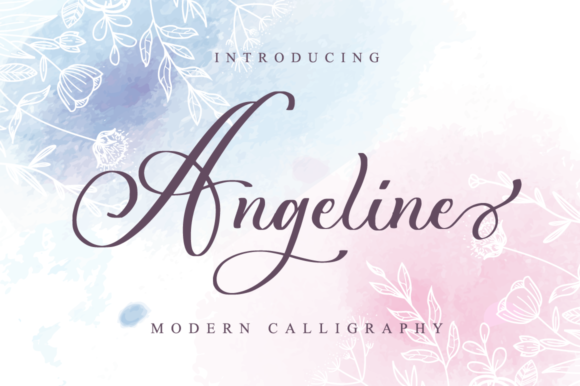
The Joy of Handwritten Charm: Introducing Angeline Font
Have you ever found yourself scribbling down ideas in the margins of a notebook, watching as your pen dances across the page, bringing your thoughts to life? For designers, that’s often the spark that ignites a new project. And what if you could capture that same sense of playfulness in your digital designs? Enter the Angeline Font, a lovely script font that’s sure to add a touch of whimsy to your most creative ideas.
This charming font features playful characters that seem to dance along the baseline, making it the perfect addition to any design project. With Angeline Font, you’ll be able to access all the glyphs and swashes you need to bring your vision to life. Whether you’re a seasoned designer or just starting out, Angeline Font is a valuable tool that’s sure to elevate your designs and make them stand out.
- Unique Characteristics: Elegant, cursive script with a touch of classic sophistication, ideal for invitations, greeting cards, and wedding stationery
Angeline Font Review
As a designer, I was excited to dive into the world of Angeline Font. Here’s my honest take:
- The elegant and refined feel of the font is perfect for creating sophisticated designs.
- Angeline’s varied weights and styles provide ample opportunities for versatility in your projects.
- The font’s high legibility makes it an excellent choice for body text and titles alike.
- The font’s lack of bold and italic weights can limit its use in certain situations.
- Some characters may appear slightly condensed or inconsistent, which can affect the overall aesthetic.
Angeline Font is a beautiful and elegant choice for designers seeking a refined look. While it has some limitations, its strengths make it a valuable addition to any design library. I would recommend it for projects where sophistication and elegance are key, but be mindful of its limitations when working with complex designs or specific typography requirements.
Angeline font is ideal for:
2. Branding and logo designs.
3. Fashion and beauty product labels.
For optimal results, use Angeline font in conjunction with elegant and sophisticated design elements.